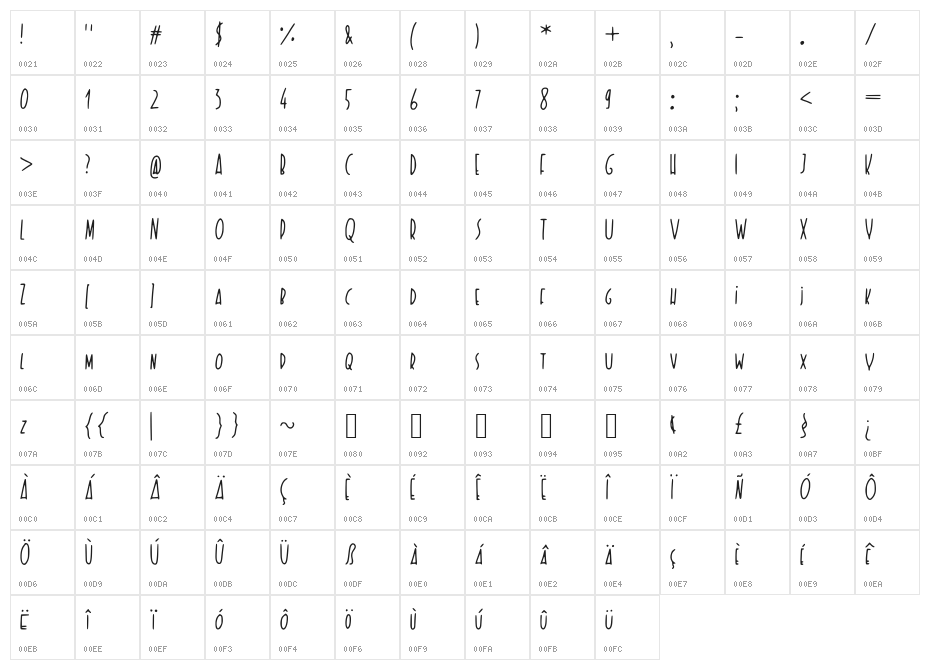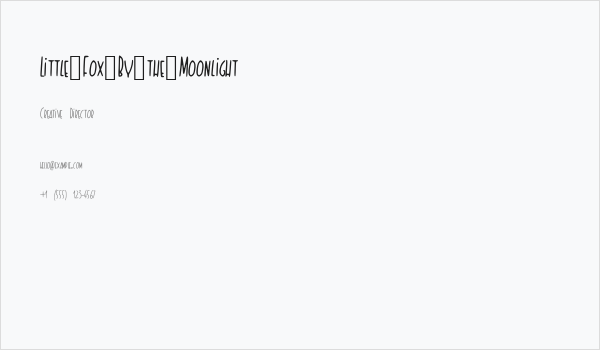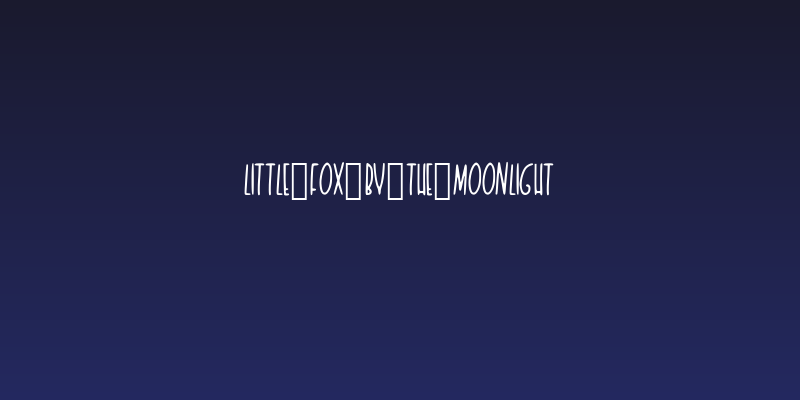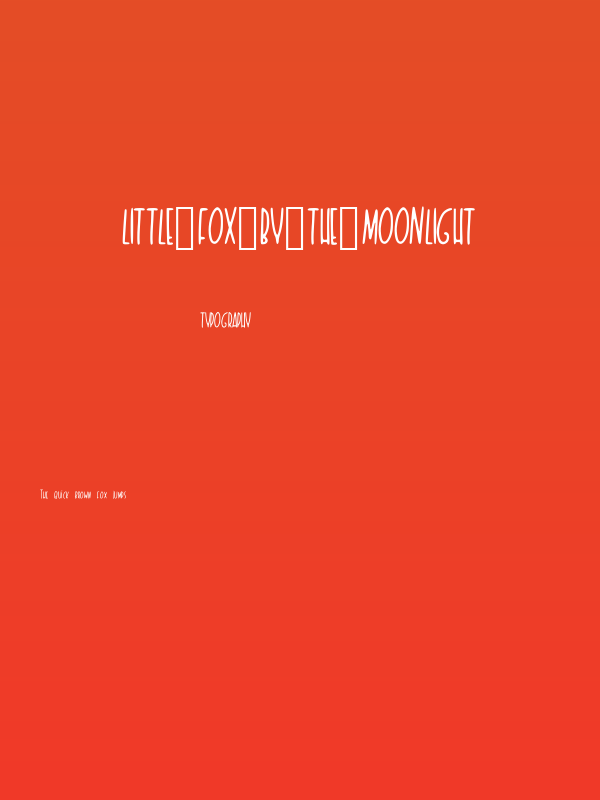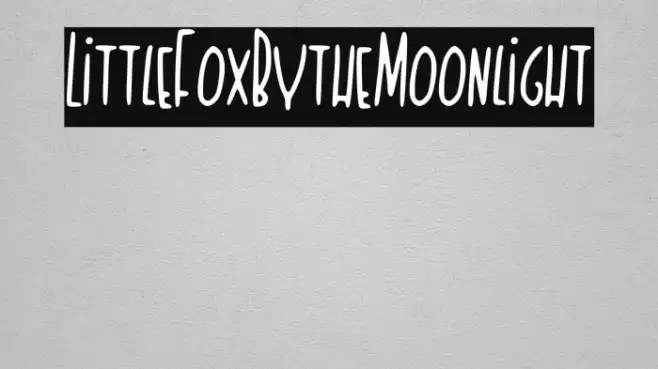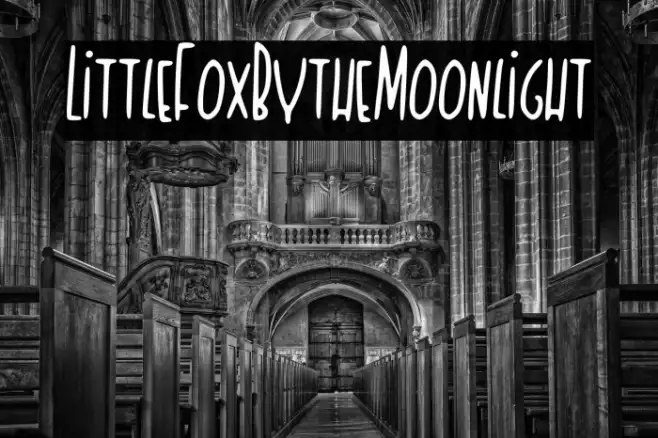
Little_Fox_By_the_Moonlight Font
Little_Fox_By_the_Moonlight Description
This font features a playful and whimsical style, characterized by its tall, narrow letters with slightly irregular strokes. The uppercase and lowercase letters maintain a consistent height, giving it a uniform appearance. The strokes are smooth and rounded, adding a friendly and approachable feel. The numbers and special characters follow the same design principles, ensuring cohesion across all glyphs. This font's unique charm makes it suitable for creative and informal projects, where a touch of personality is desired.
| Proposed Projects | Ideal for children's books, greeting cards, playful branding, and creative posters. |